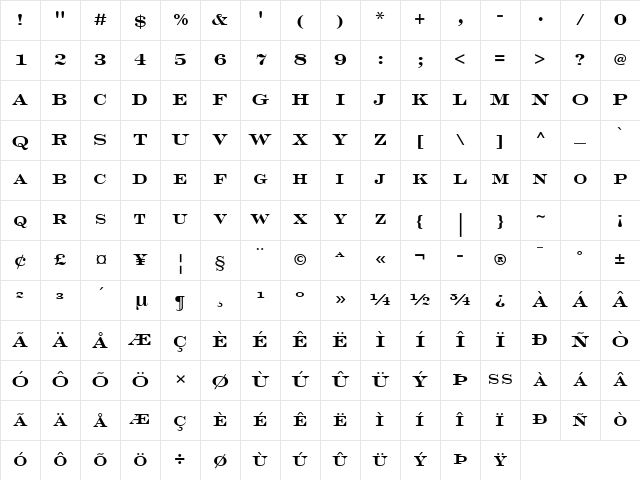
Engravers LH Bold Face Regular
Design Context for Engravers LH Bold Face
Engravers LH Bold Face is a composed and adaptable typeface that performs quietly and consistently across a wide range of design contexts. Its bold stroke weight gives it real presence on the page.